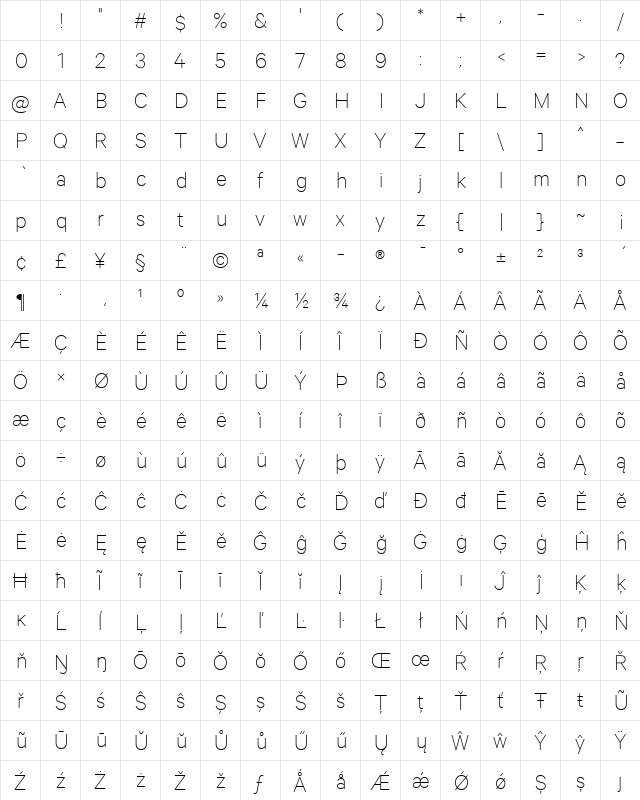
Calibre Thin is a composed and adaptable typeface that performs quietly and consistently across a wide range of design contexts. Its slender proportions lend an understated elegance to any composition.